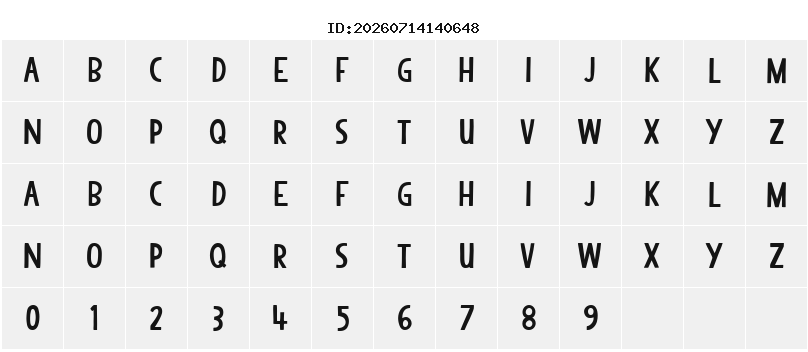
Jelly Preview
• Font Name: Jelly
• Full Font Name: Jelly
• Designer: Rosie Taprell
• Manufacturer: Rosie Tea
About Jelly.ttf
Jelly.ttf is a modern, elegant sans-serif font designed for ultimate readability and visual harmony. Perfect for branding, headlines, web design, and print materials.